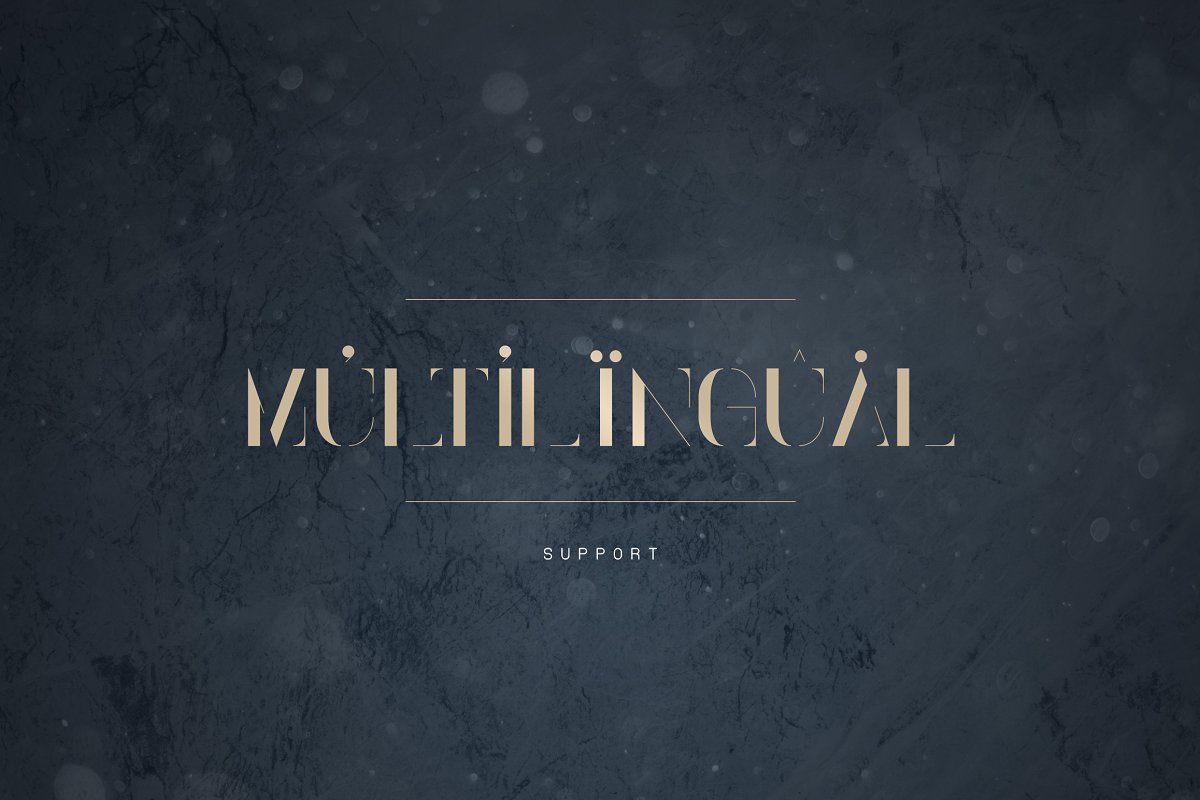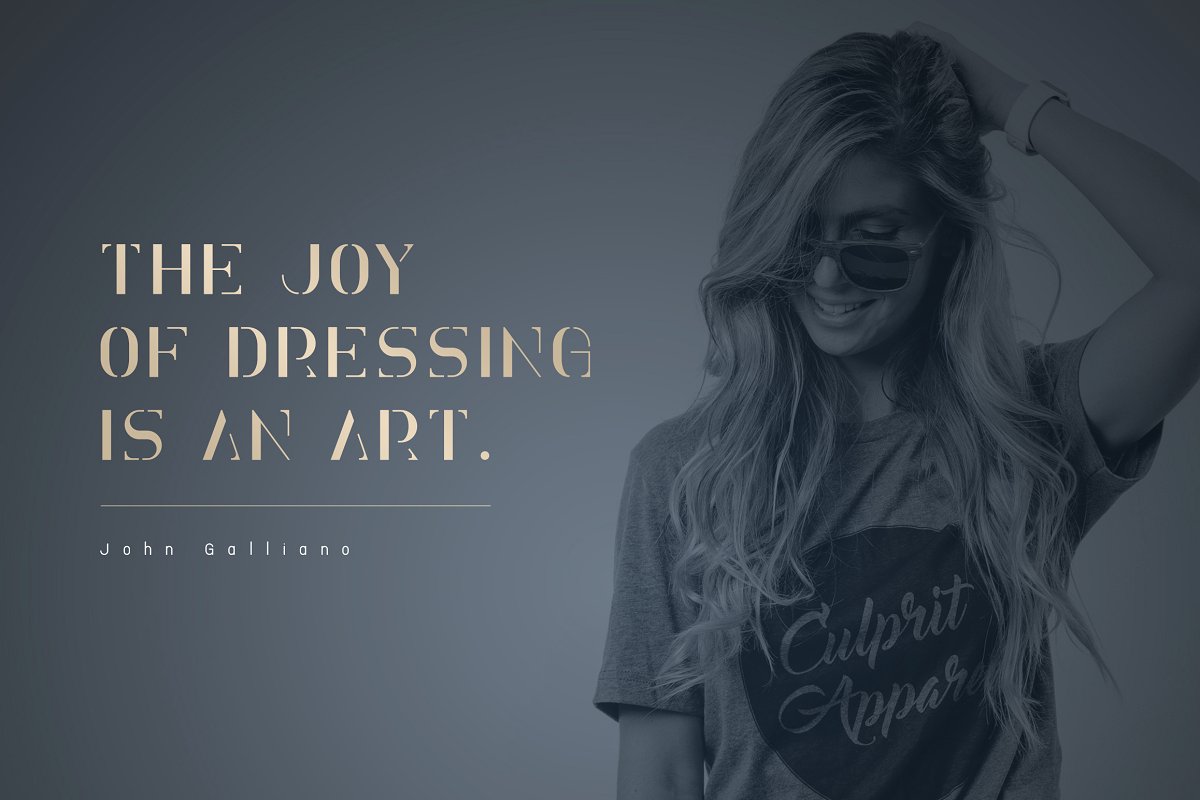
Elena Luxe Serif Font
Elena Luxe Serif Font is an modern serif font created by VPcreativeshop. Elena is clean, elegant typeface with 3 fonts and multilingual support. It’s a very versatile font that works great in large and small sizes. Elena is perfect for branding projects, home-ware designs, product packaging, magazine headers – or simply as a stylish text overlay to any background image.